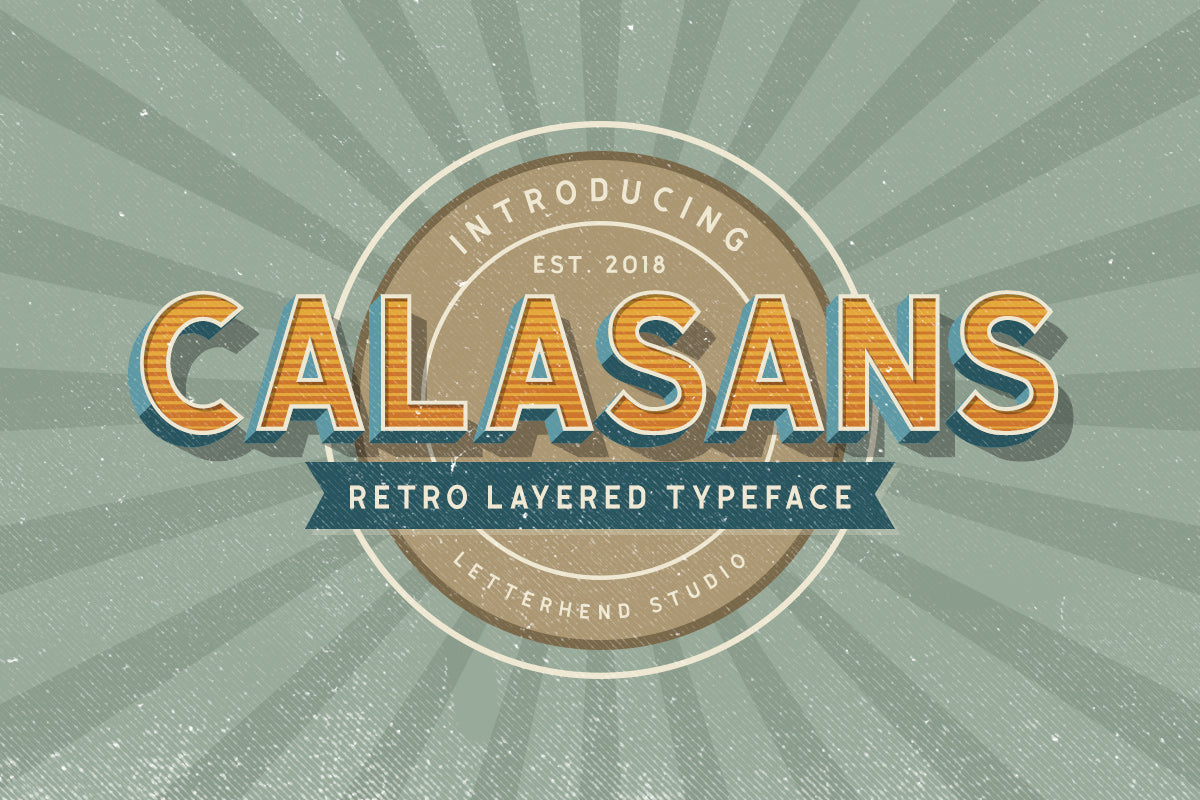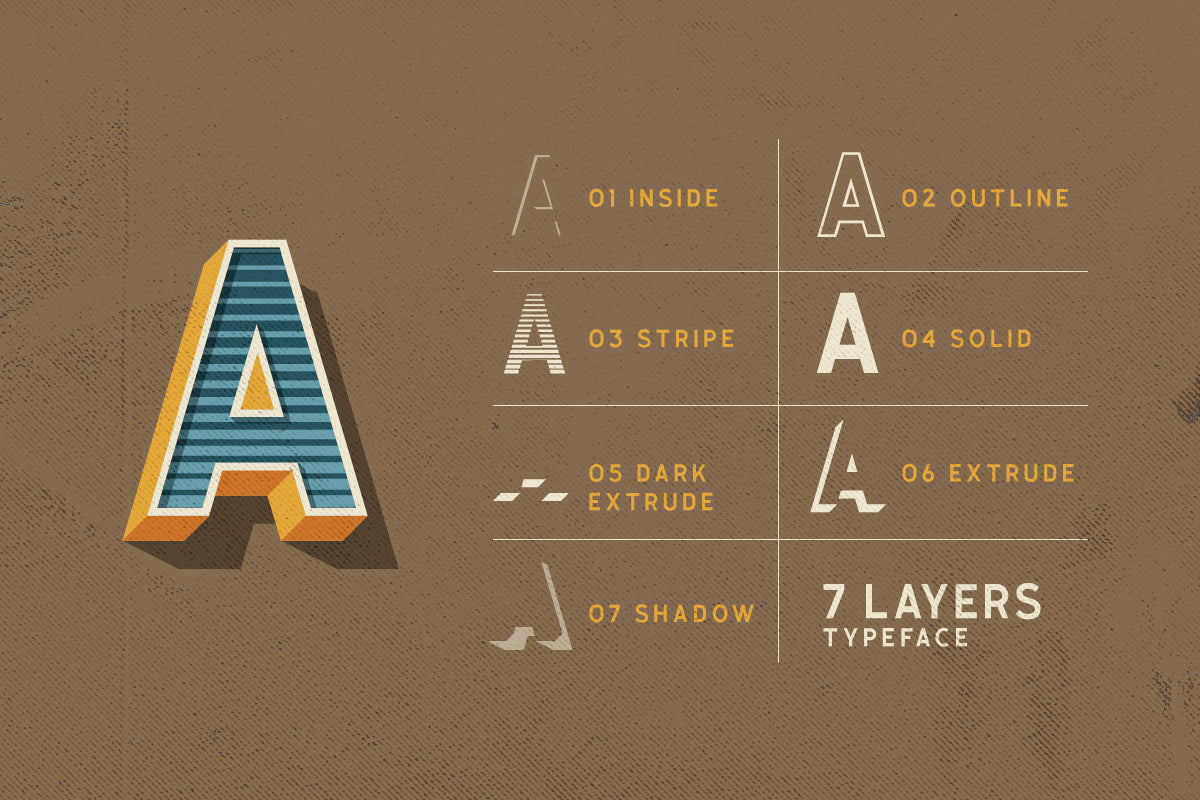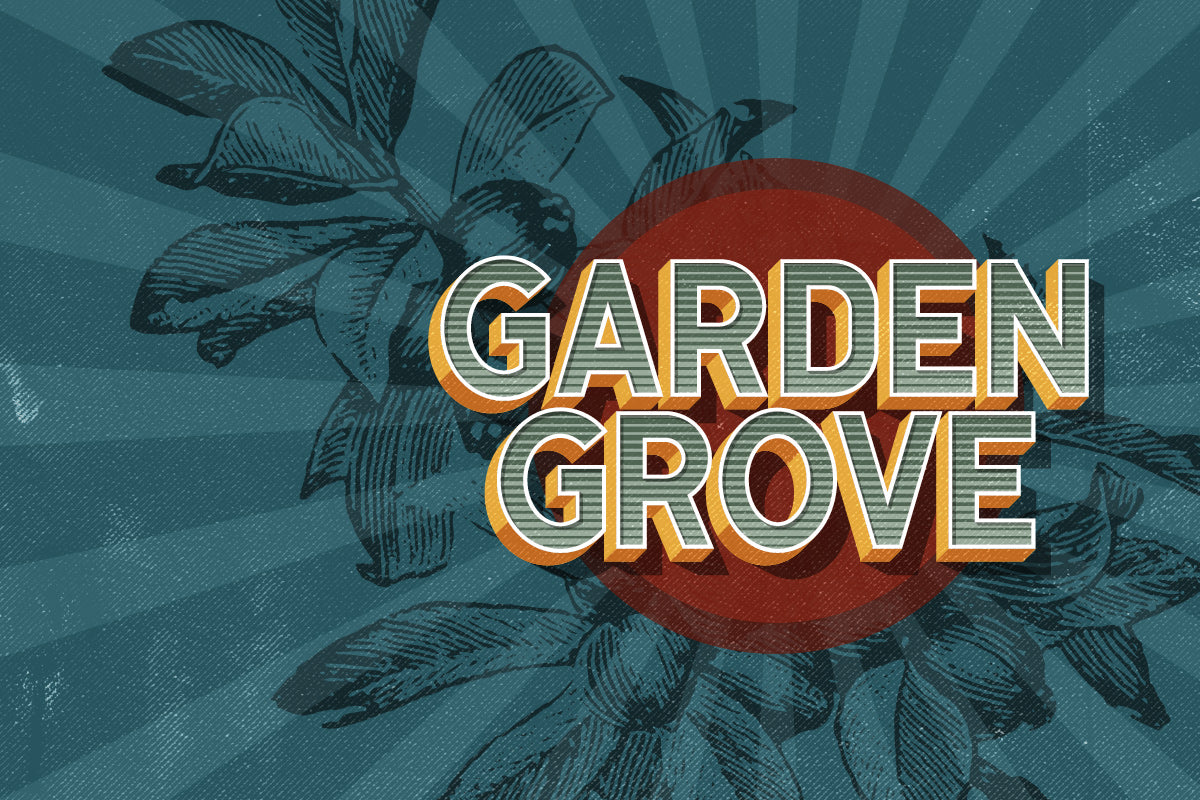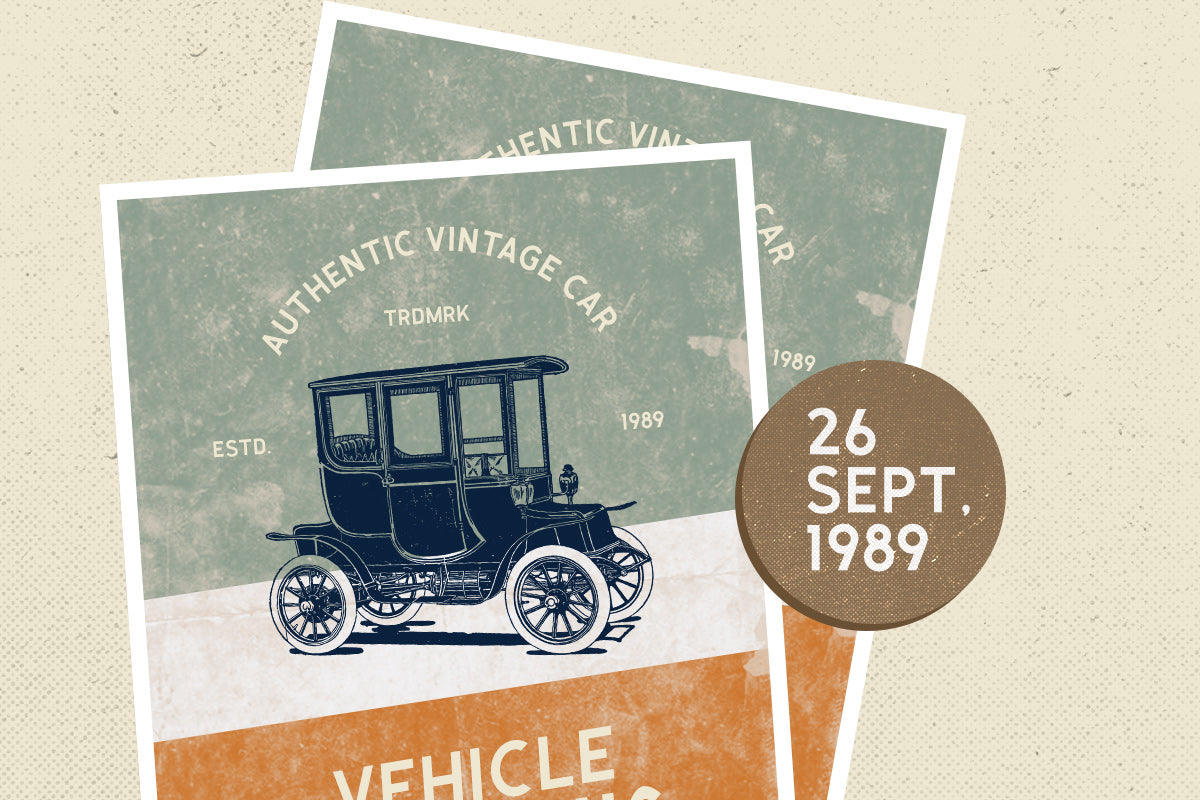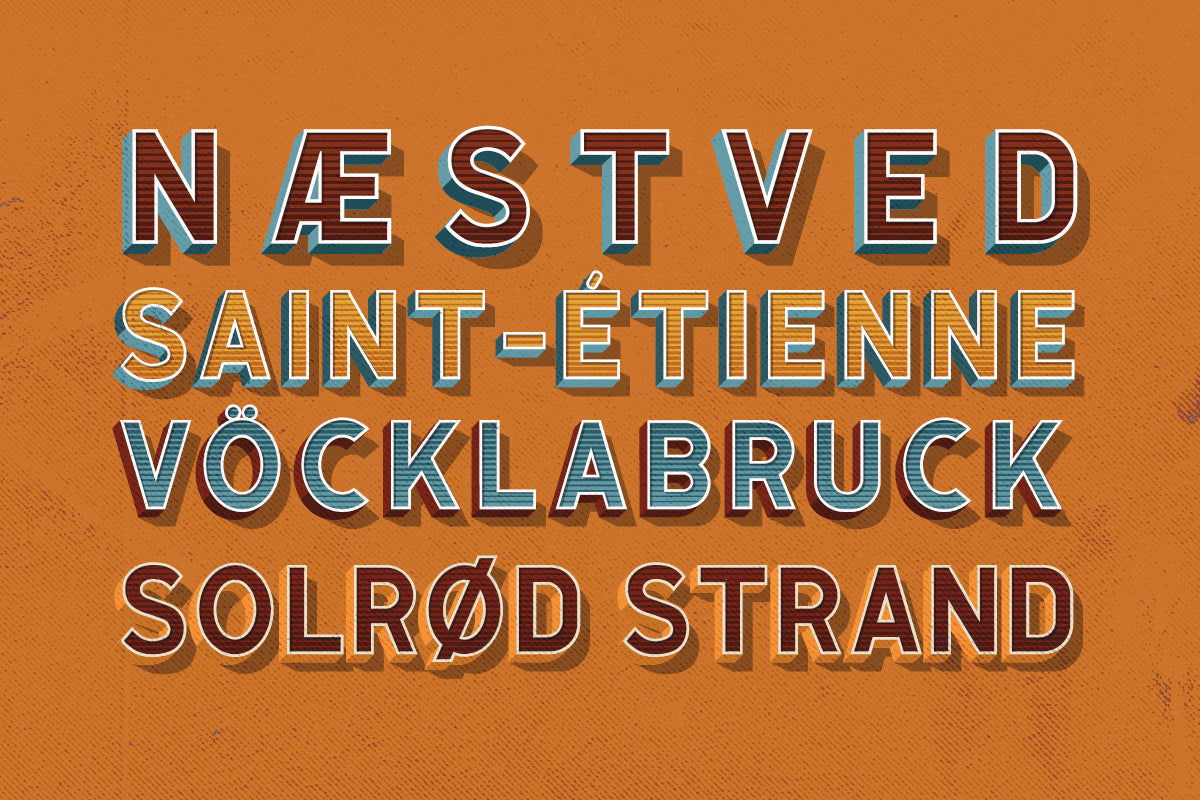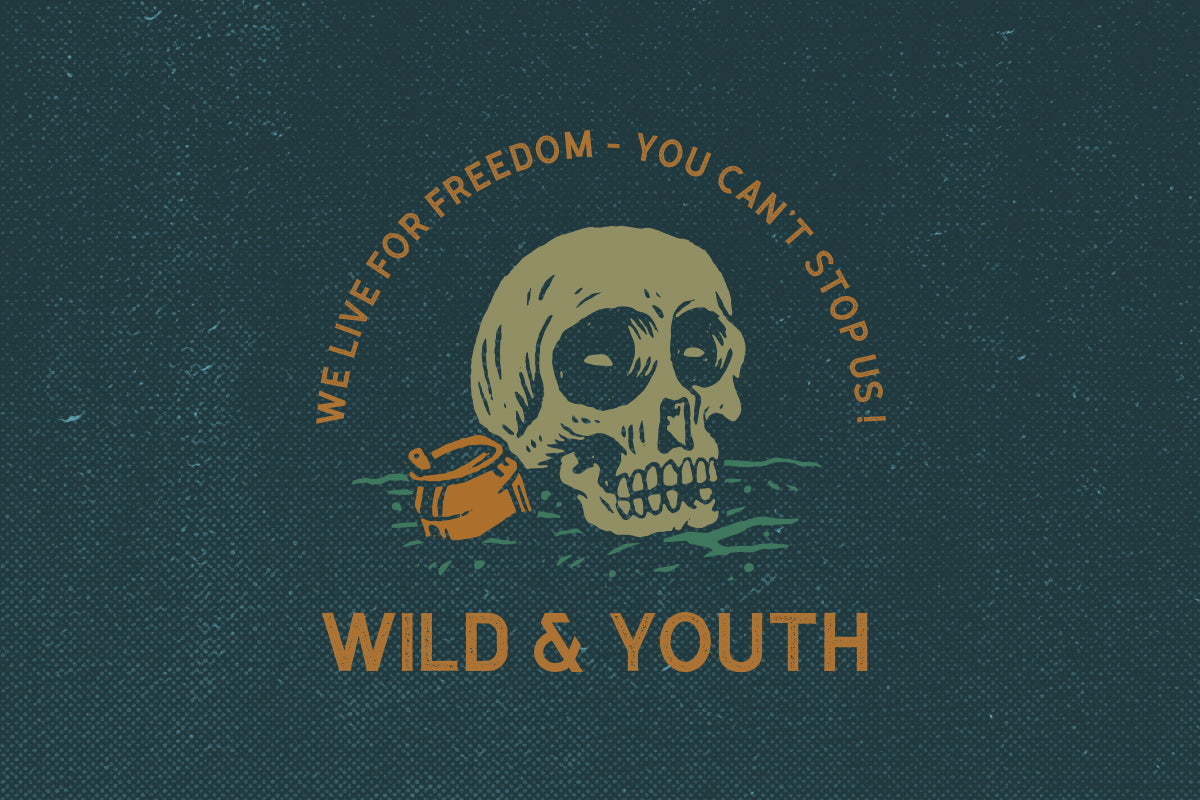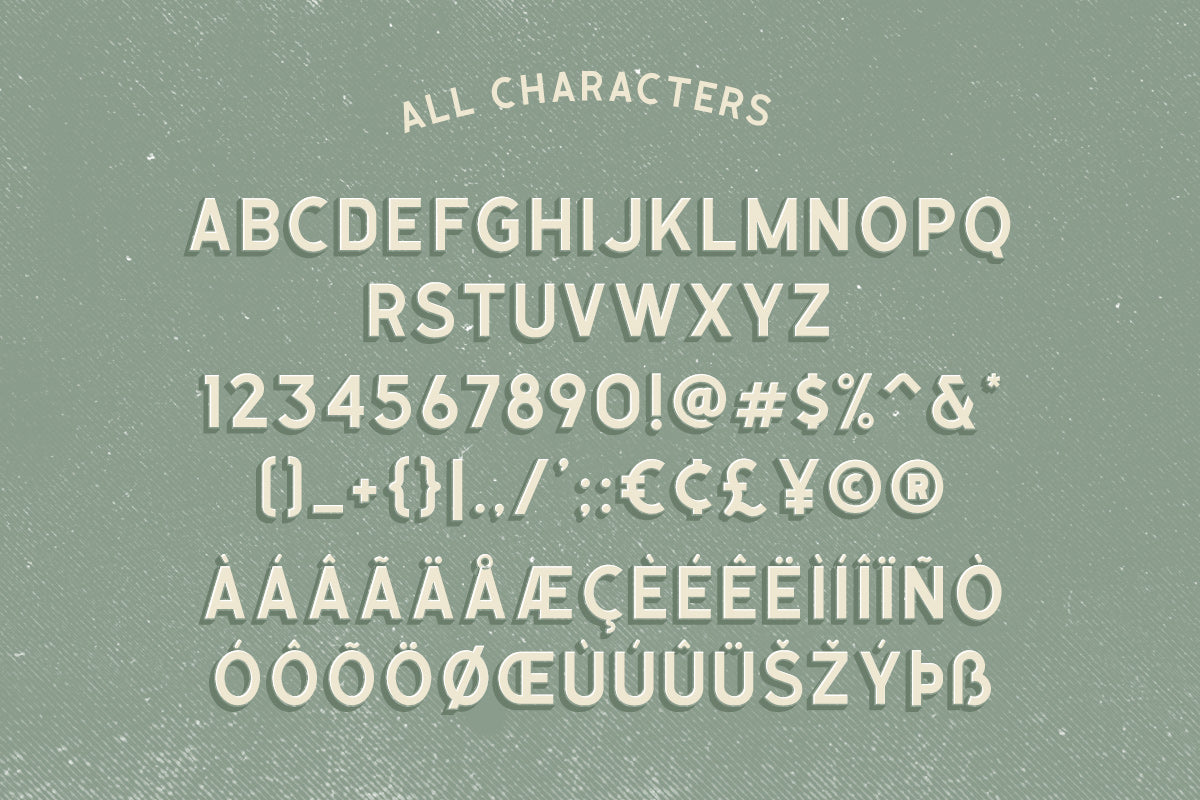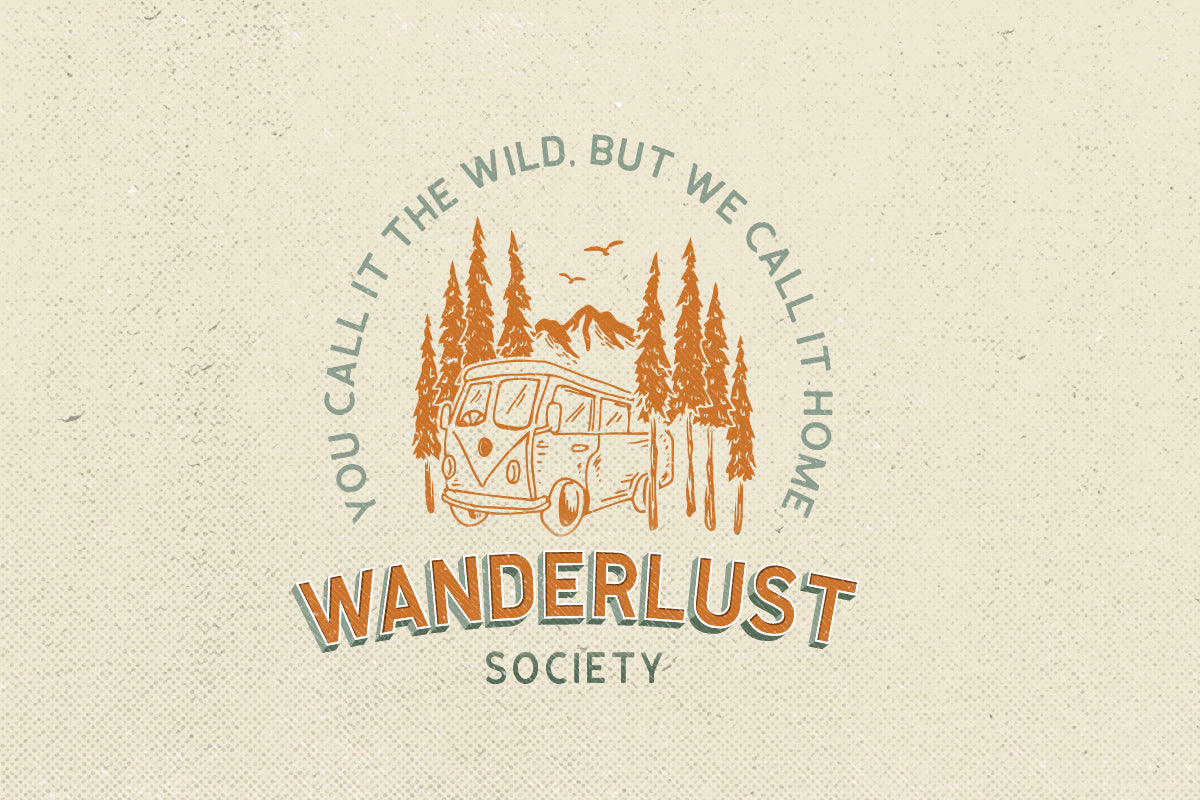
Calasans is a sans-serif font with a 7-layered style. You can create a 3D look without using any add-ons, only with fonts! This font is suitable for a vintage poster, 3d type, or retro including number and punctuations, also support multi language. Create your own 3D type now!